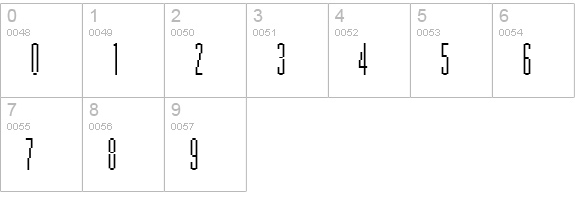
EmperorNineteen Regular Font Details
EmperorNineteen Regular is the standard, neutral variant in the EmperorNineteen typeface family \xE2\x80\x94 well suited to general body text, paragraphs, and standard typographic work.
EmperorNineteen Regular font is a versatile and elegant typeface that exudes sophistication and modernity. Its clean lines and sharp edges make it perfect for a wide range of design projects, from branding to editorial layouts. The font's sleek and timeless appearance ensures that it will make a lasting impression on any audience. What sets EmperorNineteen Regular font apart is that it is available for free download at FontsMarket.com. This means that you can easily access this high-quality typeface without any cost, making it a valuable addition to your font library. Whether you are a designer, artist, or simply someone looking to enhance their projects, EmperorNineteen Regular font is a must-have resource that offers both style and accessibility. Download it today and elevate your designs with this exceptional typeface.